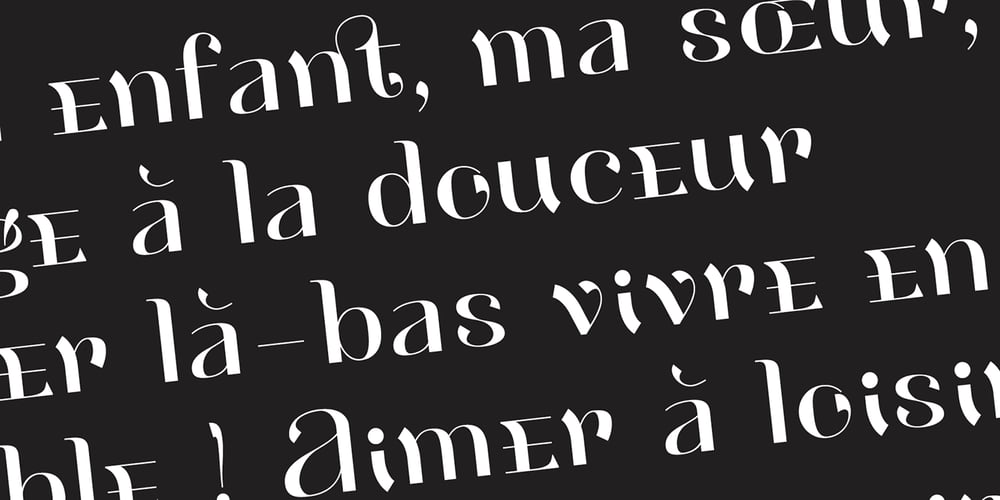
Henri Modeste
Henri Modeste font
Henri Modeste Font Family was designed by Jean Boyault and published by JBFoundry. Henri Modeste contains 2 styles and family package options. Henri Modeste is a mix of capital and lowercase forms. It has an high contrast and many ligatures to give your documents an eccentric look.